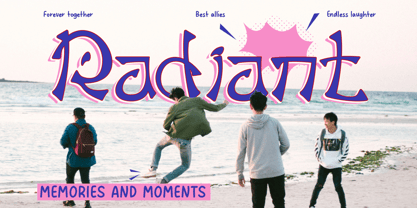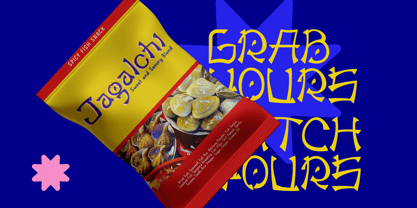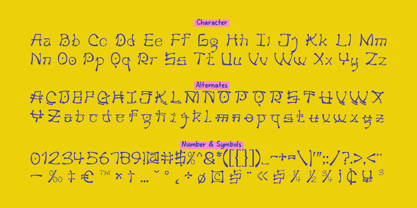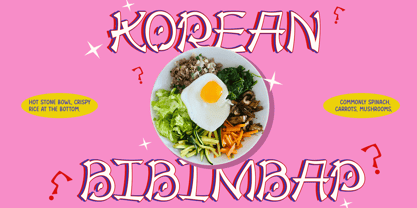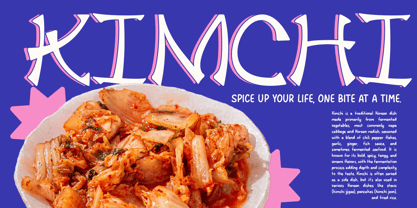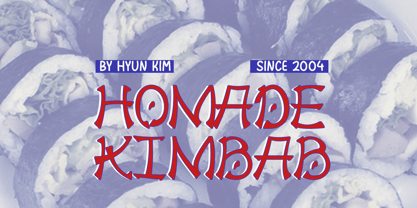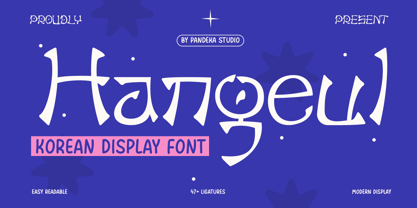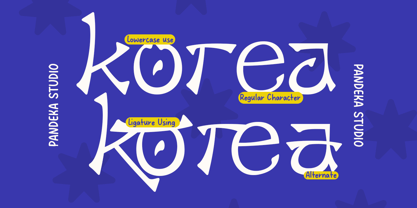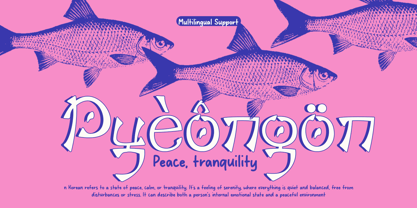
Hangeul
The Hangeul Font Family was designed by Sagara Nararya and published by Pandeka Studio. Hangeul contains 1 styles.
Hangeul – Korean Elegance in Every Stroke
Hangeul is a Korean display font that blends bold lettering with modern typography while embracing a traditional aesthetic. Inspired by Hangul style, it reflects the richness of cultural design in a unique typeface. Perfect for branding, logos, packaging, posters, event invitations, and editorial design, Hangeul adds a distinct, timeless charm to any project. ✨
• 47+ Ligatures and alternates